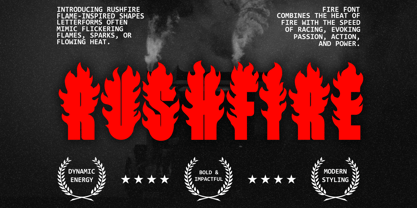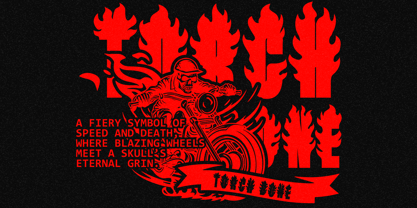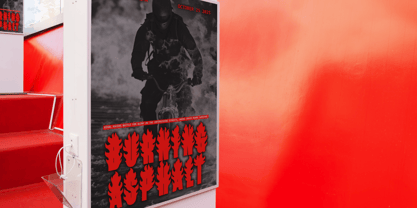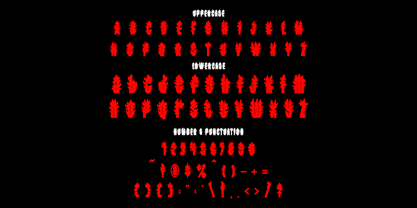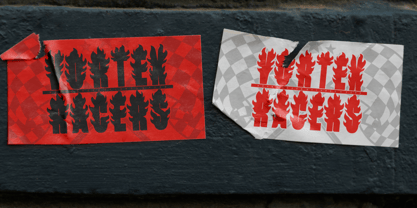
Rushfire
by Shanaf
Rushfire Fire Font is a striking display typeface inspired by the raw force and intensity of fire. Each letterform is bold and tall, with flame-like extensions that mimic the motion of flickering sparks and blazing heat. The design combines thick blocky bases with organic flame shapes, creating a dynamic balance of power and fluidity. Its strong vertical weight ensures impact and readability, while the flame details add movement and excitement. The result is a font that feels alive, fiery, and impossible to ignore. Rushfire Fire Font captures passion, speed, and action in every character, making it a perfect choice for bold visual statements. Rushfire Fire Font is designed for impactful use across branding, sports advertising, racing posters, gaming titles, and entertainment media. It works brilliantly in logos, headlines, event promotions, and packaging where energy and intensity are essential. The flame-styled forms communicate power, heat, and urgency, making them suitable for projects that aim to inspire adrenaline and emotion. From cinematic posters to urban streetwear graphics, this font adds a bold edge that grabs attention instantly. With its modern styling and flame-infused design, Rushfire Fire Font delivers a unique and unforgettable visual identity that ignites every creative project.